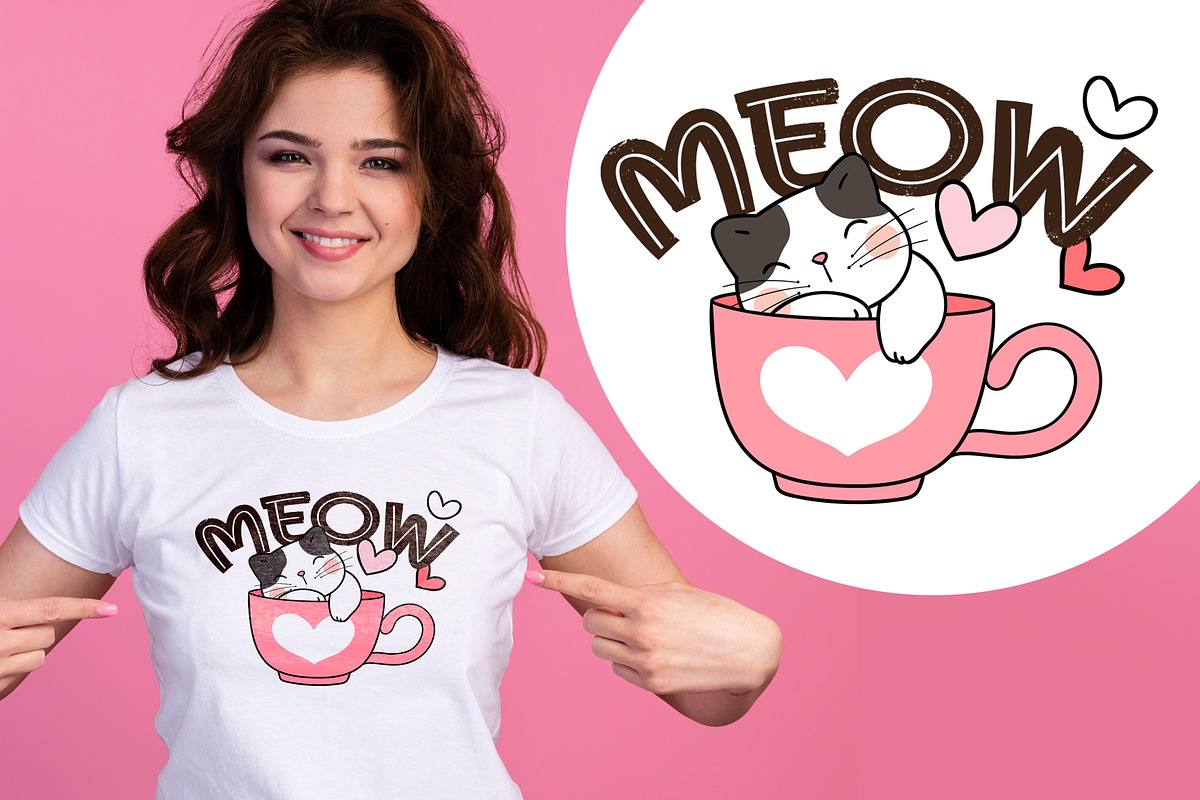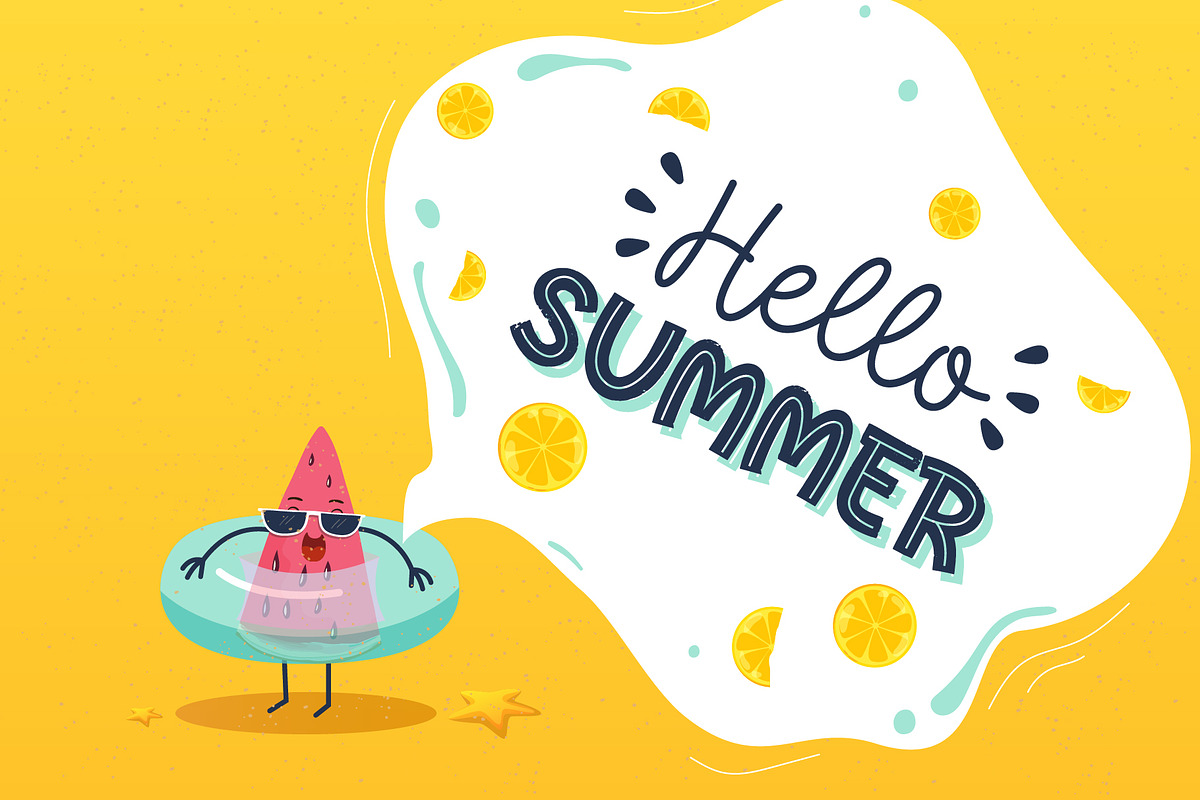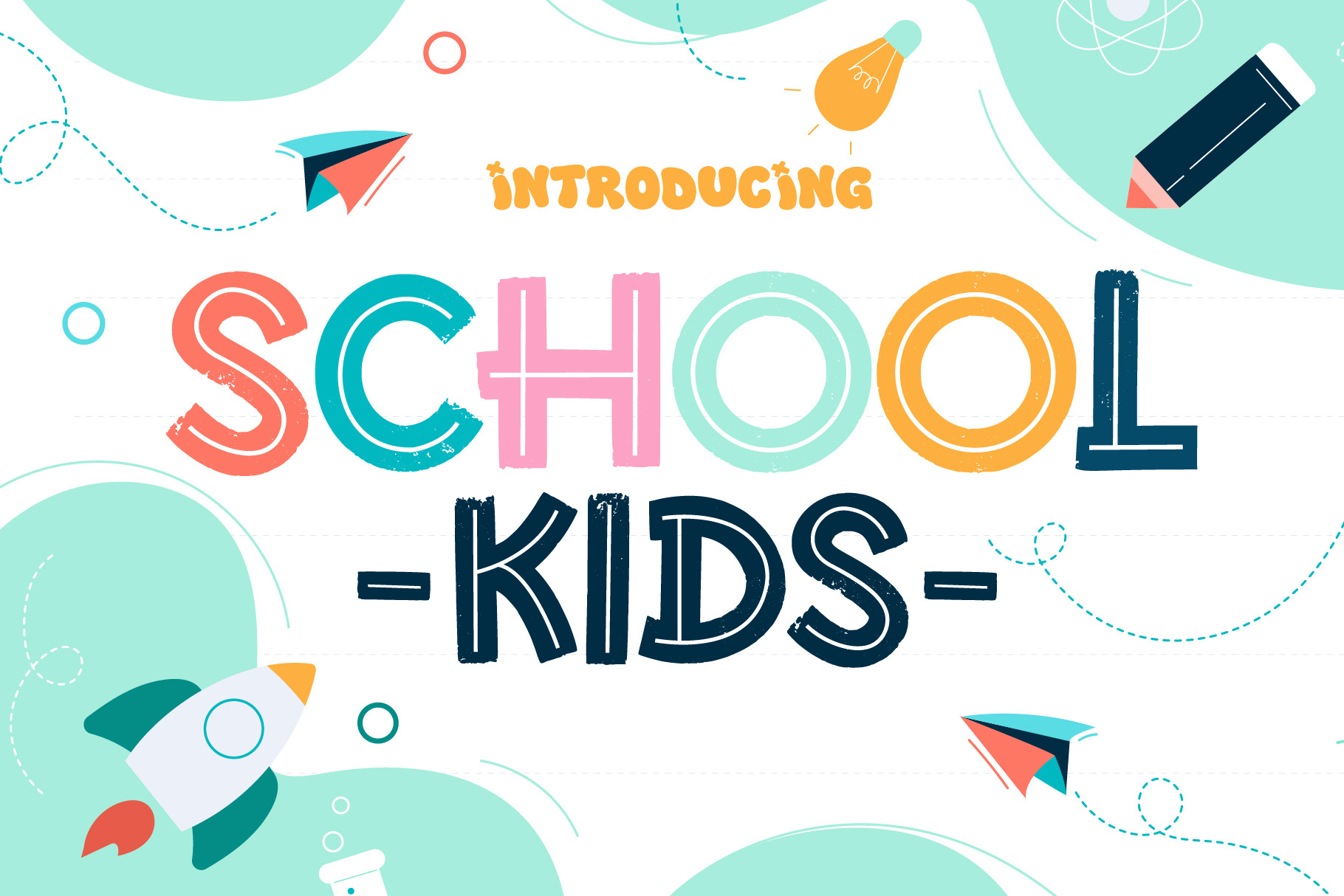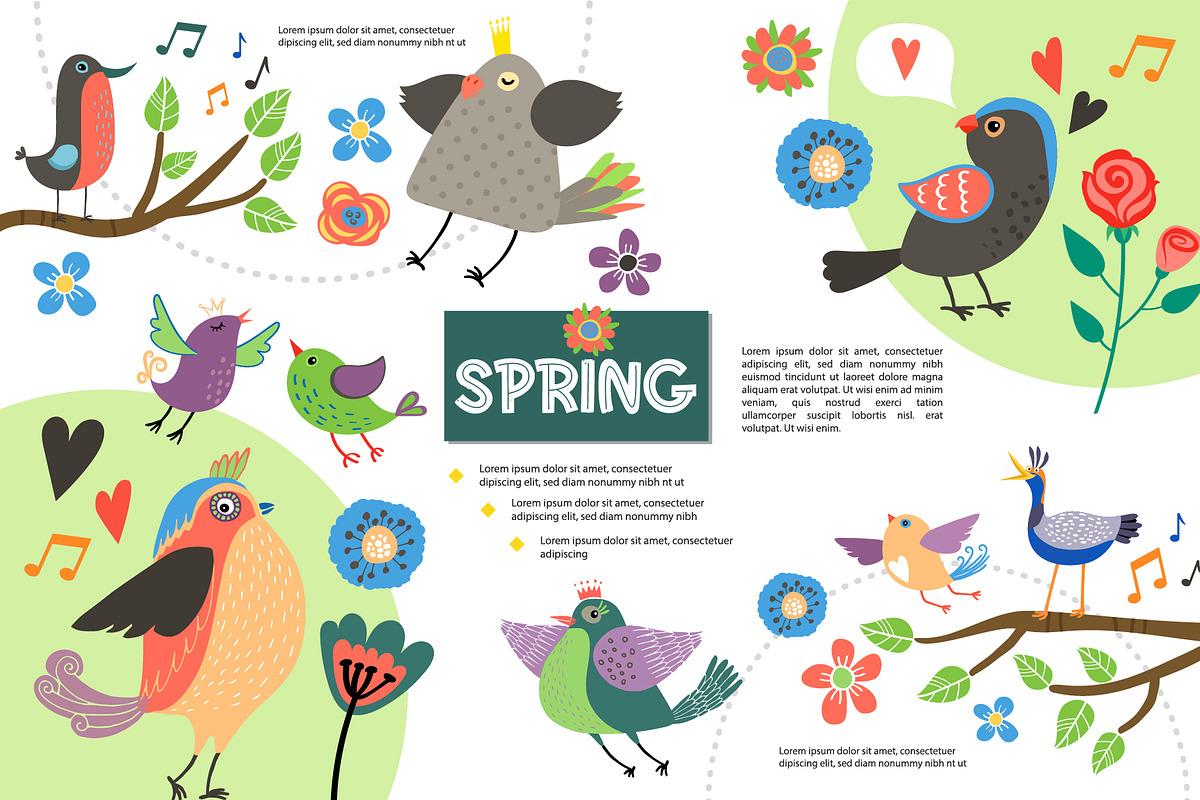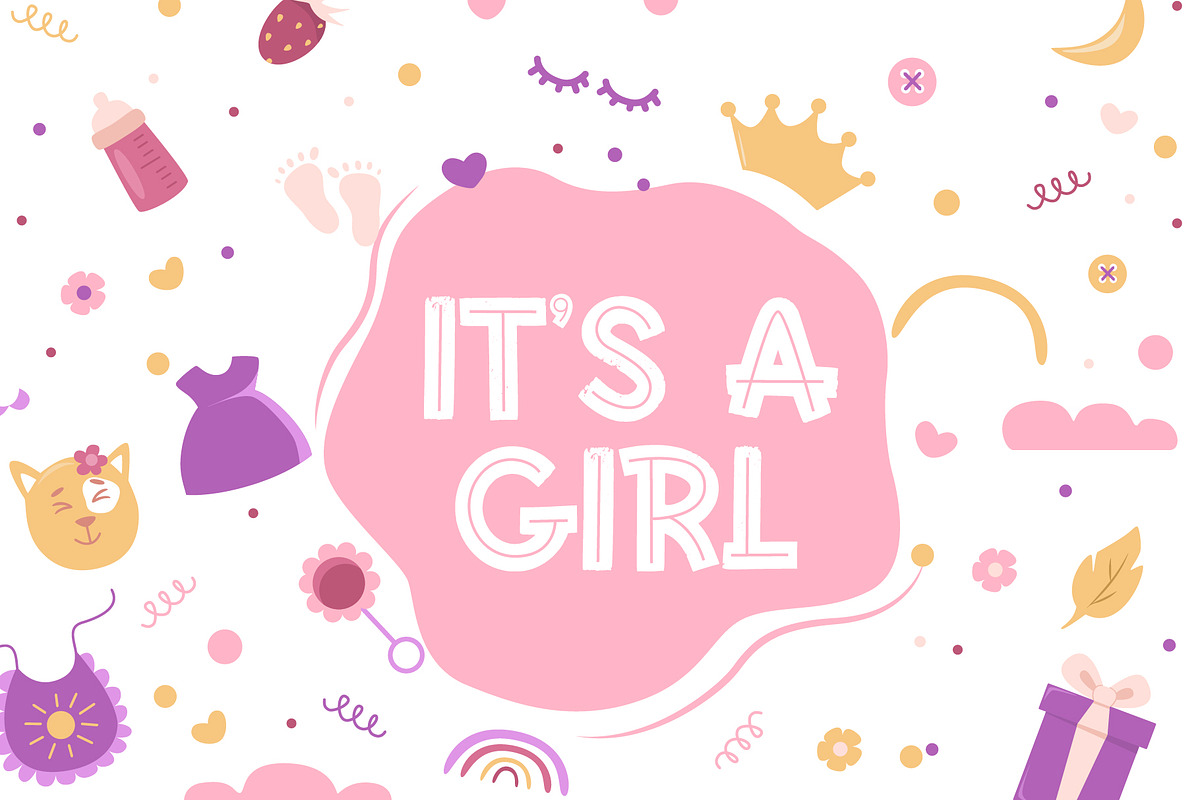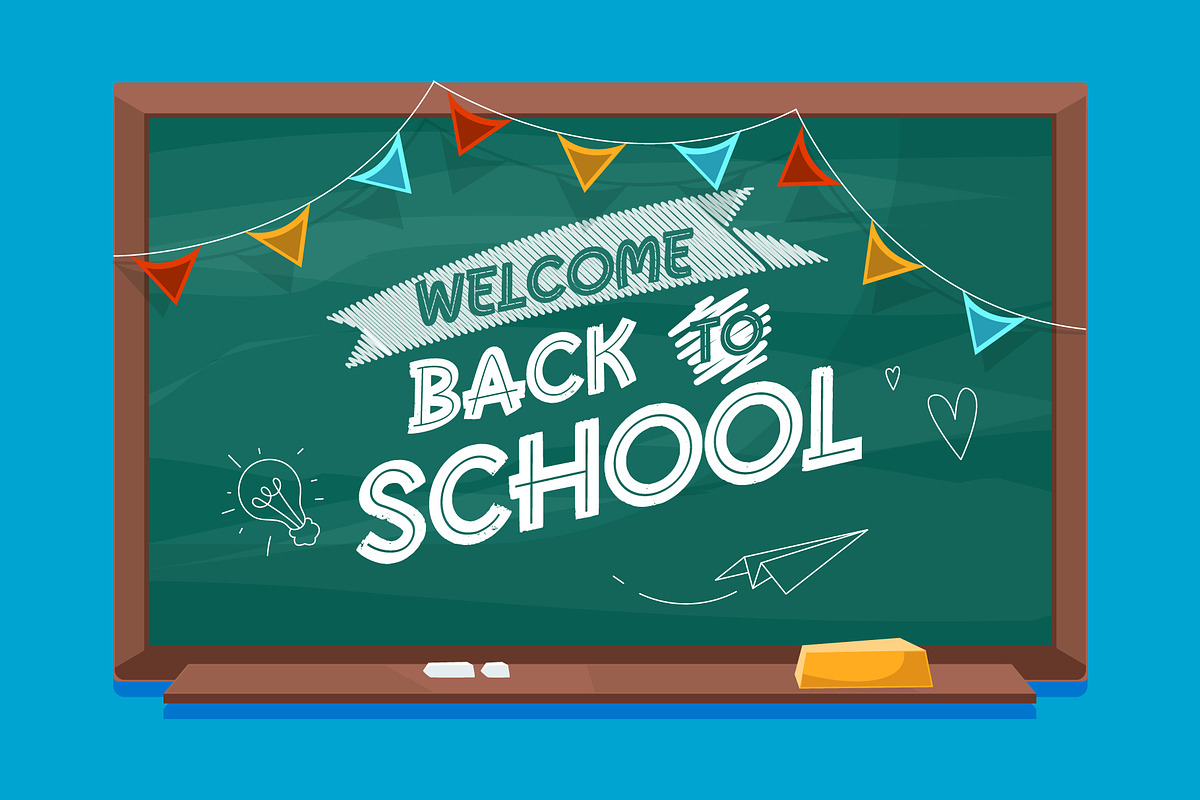
School Kids Fonts
School Kids is a fun and cute display font. Due to its versatile vibe, it fits perfectly into any design idea, such as children's projects, blog posts, logos, branding, ads, invitations, greeting cards, planners, photo albums, decorations, and much more.